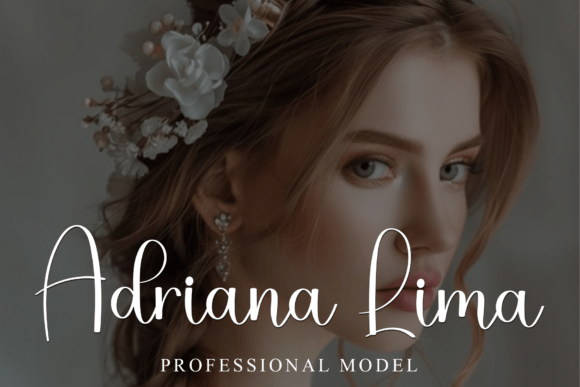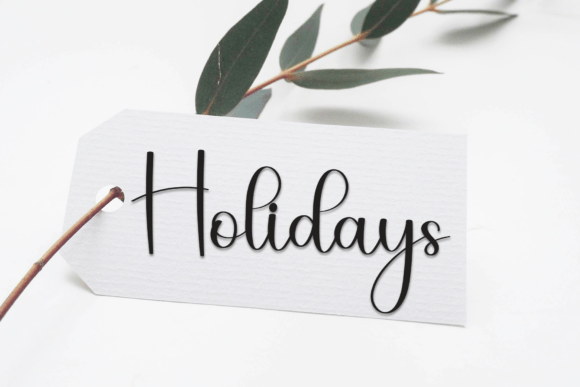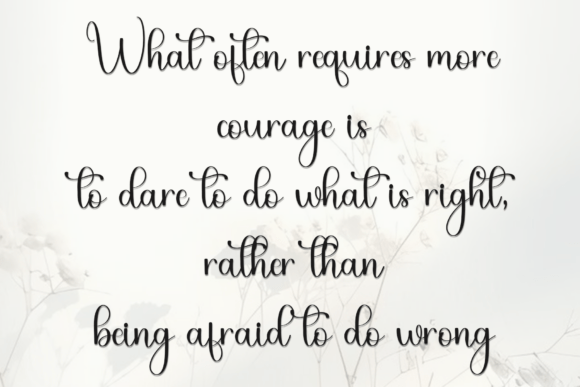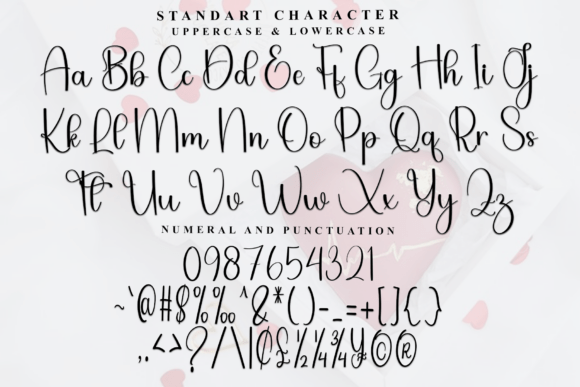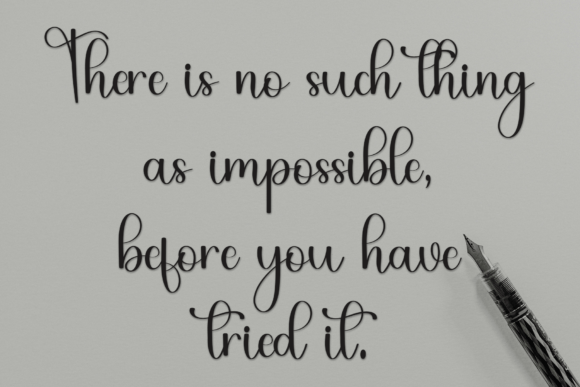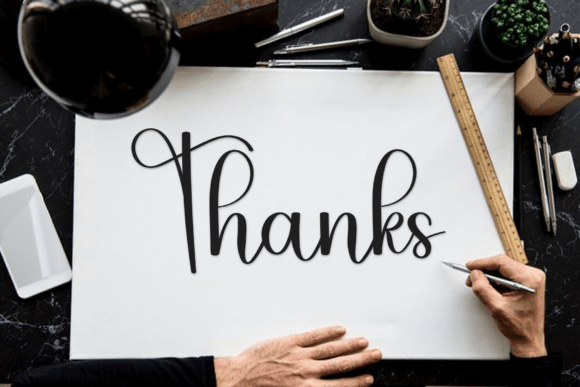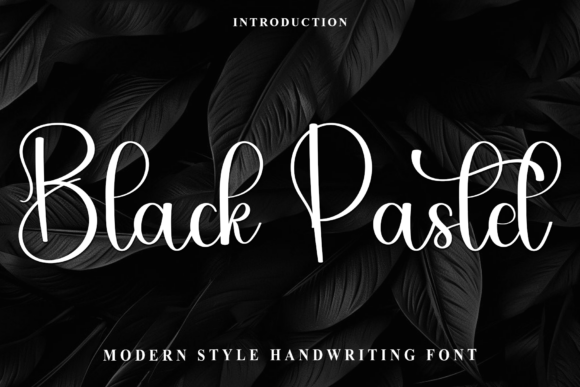
Discover the Unique Charm of Black Pastel Font: Elevate Your Designs with Its Soft and Versatile Style
In the world of typography, fonts play a crucial role in conveying messages, expressing creativity, and capturing the audience’s attention. Among the numerous font styles available, the Black Pastel Font stands out for its distinctive and eye-catching appearance. Designed with a soft, unique touch, this beautiful font is perfect for designers, crafters, and creative professionals looking to add a special character to their projects.
The Distinctive Features of Black Pastel Font
Black Pastel Font boasts a unique design that sets it apart from other font styles. Its soft and delicate strokes give it a special character, making it both meaningful and versatile for future use. The font’s distinctive features include:
- Soft and Unique Touch: The font’s soft texture and unique design elements make it perfect for creating visually appealing designs that capture the audience’s attention.
- Distinctive Strokes: The font’s strokes are carefully crafted to give it a special character, making it ideal for a wide range of design projects.
- Variety of Characters: Black Pastel Font comes with a range of characters, ensuring that you have plenty of options to choose from for your design projects.
Perfect for Design Projects, Crafts, and Creative Works
Black Pastel Font is an excellent choice for designers, crafters, and creative professionals working on various projects, including:
- Design Projects: Use Black Pastel Font to create stunning designs for brochures, posters, flyers, and other marketing materials.
- Crafts: Add a personal touch to your craft projects, such as handmade cards, gift tags, and scrapbooking.
- Creative Works: Use the font to create engaging content for blogs, social media, and websites.
Why Choose Black Pastel Font?
Black Pastel Font offers several benefits that make it an excellent choice for designers and crafters, including:
- Natural Font Style: The font’s natural style makes it perfect for creating designs that are both visually appealing and engaging.
- Wide Range of Products: Use Black Pastel Font for a wide range of products, from marketing materials to craft projects.
- Appealing to Audiences: The font’s unique style makes it appealing to audiences across different artistic and creative fields.
In conclusion, Black Pastel Font is a beautiful and eye-catching font that offers a unique and versatile style for designers, crafters, and creative professionals. Its soft and delicate strokes, distinctive features, and compatibility with various applications make it an excellent choice for a wide range of design projects, crafts, and creative works. Elevate your designs with the charming and captivating style of Black Pastel Font.